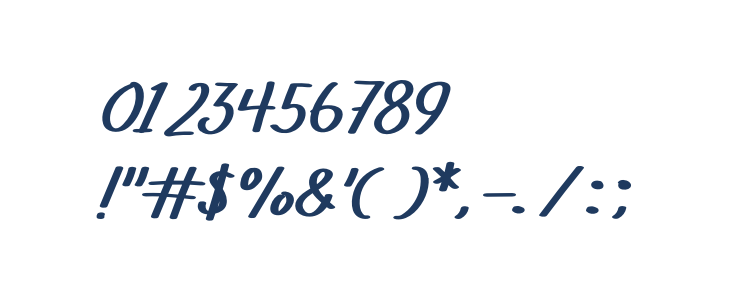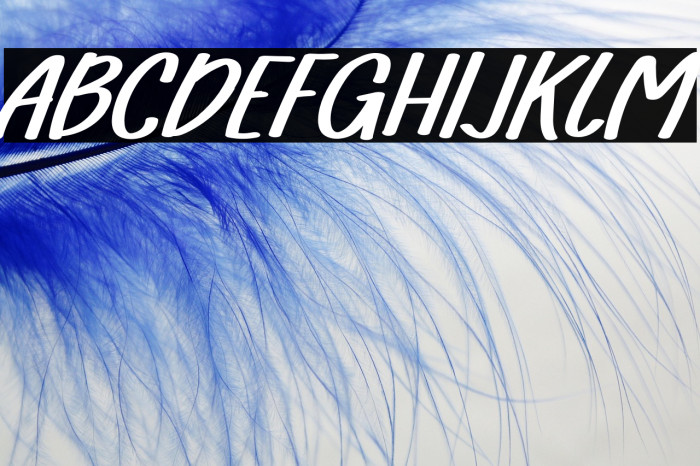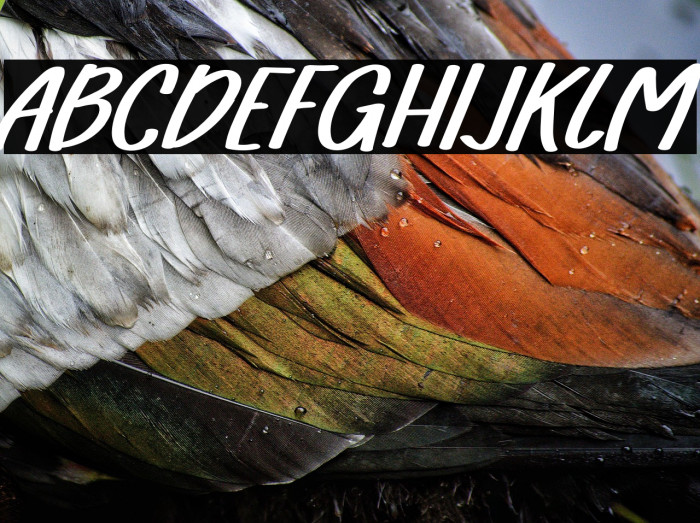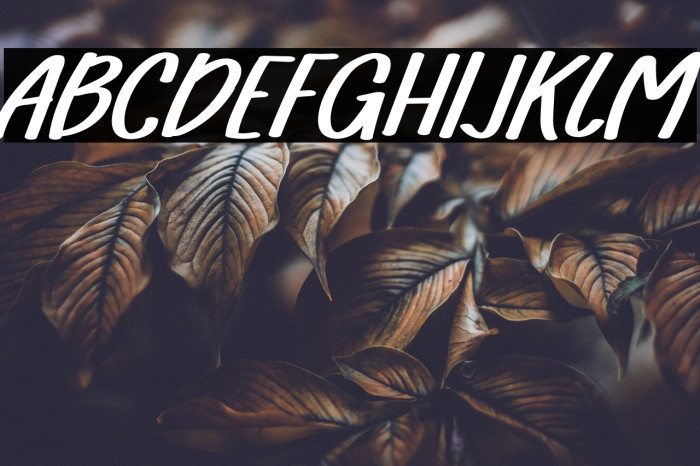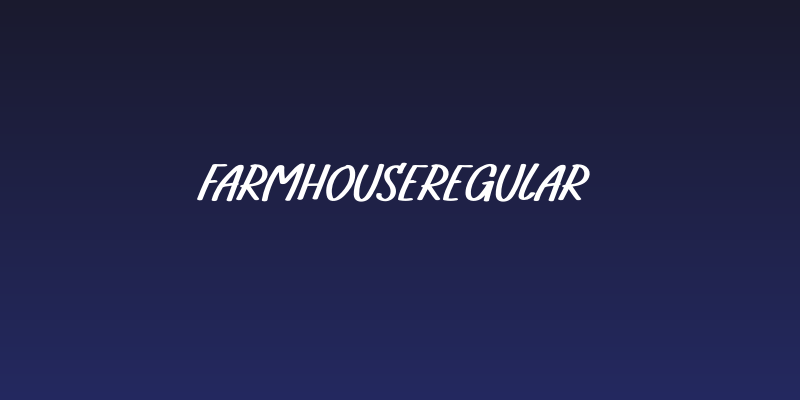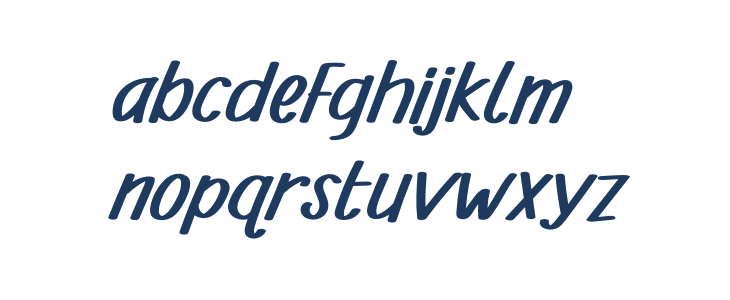
FarmhouseRegular Font
FarmhouseRegular Description
This font features a charming, handwritten style that exudes warmth and personality. The letters are slightly slanted, giving a sense of movement and fluidity. The strokes are smooth and consistent, with a moderate thickness that ensures readability while maintaining a casual and friendly appearance. The uppercase and lowercase letters are well-proportioned, and the numerals are clear and distinct. Special characters are thoughtfully designed to match the overall aesthetic, making this font versatile for various uses.
| Use Case | Logos, Invitations, Greeting cards |
| Proposed Projects | Ideal for invitations, greeting cards, branding, and packaging design. |